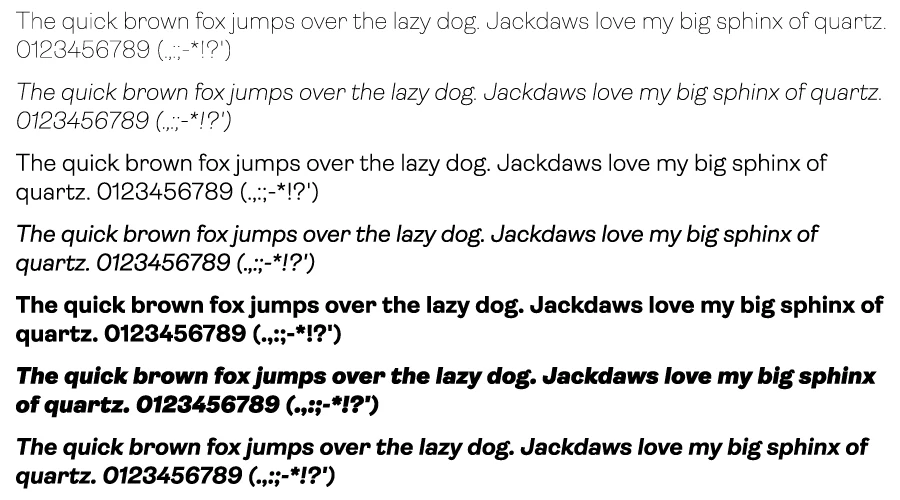
Ambit is a unique sans serif font typeface font and it is inspired by grotesques. Ambit is adapted for modern use. Its characters have curly and a very distinctive look. Ambit supports most languages written with the Latin script. With seven weight and 14 styles, this font is most popular around the globe now. If anyone thinks of any font in the present tense, Ambit will be above all.
Since this font is made keeping in mind the present time, it can be used very easily in all cases. You can use Ambit font for any official documents and printing purposes. Besides this, you can use it for the branding of your company or something else.
| Name | Ambit Font |
| Style | Sans Serif |
| Author | Cotypefoundry |
What type of font is Ambit?
Ans: Ambit is a Sans-Serif typeface font by Cotypefoundry.
Is there any font similar to Ambit in Google Fonts?
Ans: Manrope is mostly similar to Ambit in Google fonts.